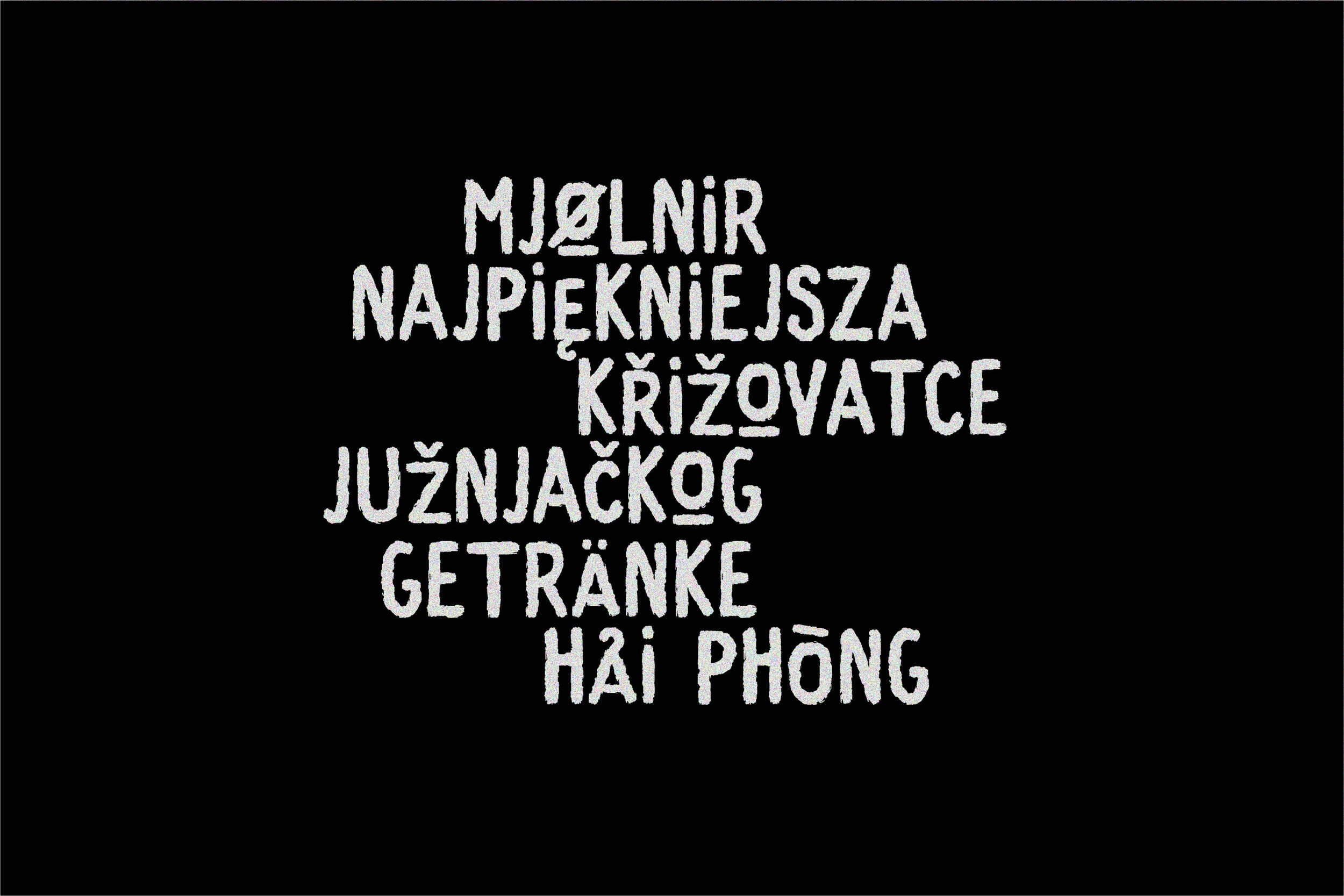
Pinewood
Say hi to Pinewood - our all-caps handpainted rustic typeface. Pinewood brings a rustic, retro vibe to any design. Suitable for logo designs, magazines, packaging, wedding papers, and more.
• Europeans languages
Vietnamese